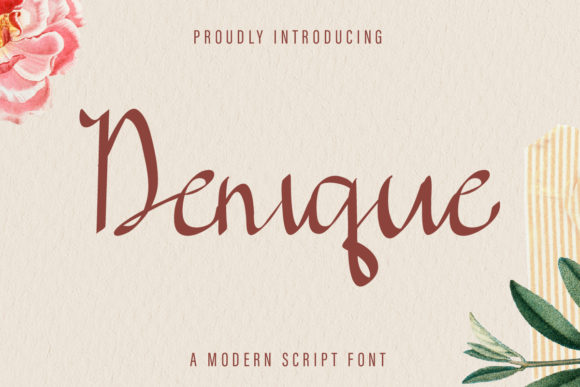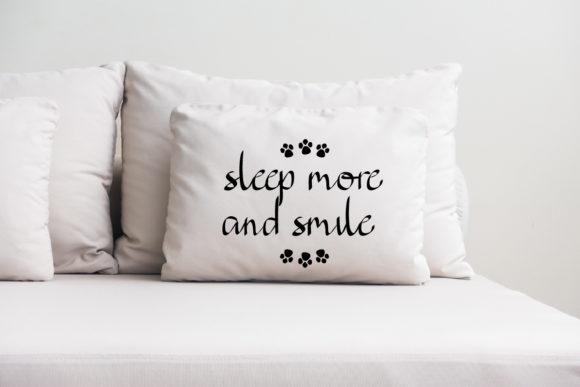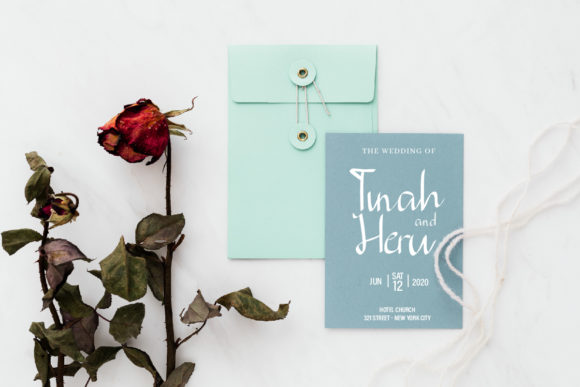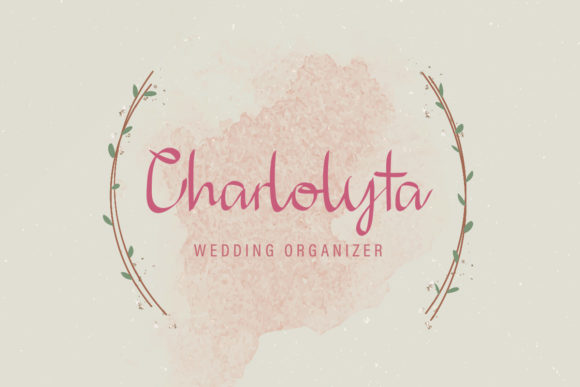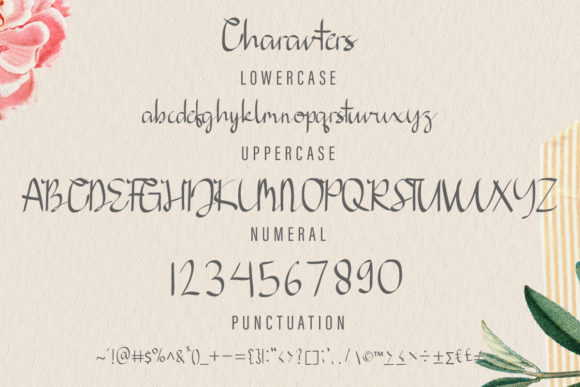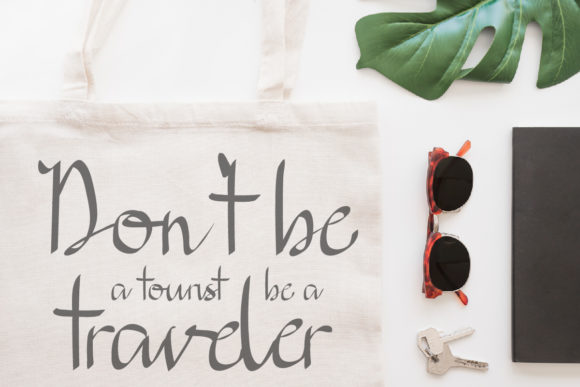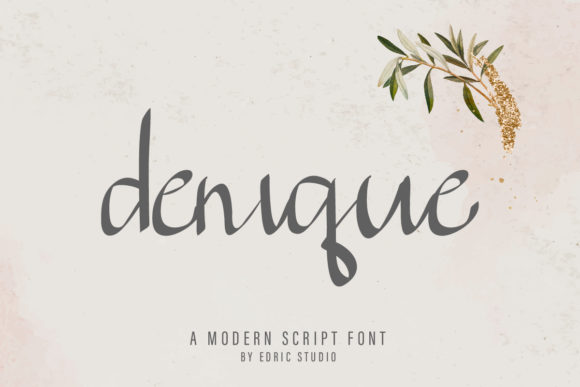
Discover the Elegance of Denique Font: A Delicate Handwritten Script
Are you on the hunt for a font that exudes elegance, simplicity, and uniqueness? Look no further than Denique Font. This delicate, simple, and unique handwritten font is designed to elevate your creative projects with its beautiful and well-balanced characters. In this article, we’ll dive into the world of Denique Font, exploring its features, benefits, and uses, and why it’s a must-have for designers and crafters alike.
The Characteristics of Denique Font
Denique Font is a handwritten script that boasts a delicate and simple design. Its characters are meticulously crafted to achieve a perfect balance of elegance and readability. The font’s unique feature lies in its ability to seamlessly match a wide pool of designs, making it an incredibly versatile choice for various creative projects.
Whether you’re working on a branding project, crafting a social media graphic, or designing a wedding invitation, Denique Font is sure to make your ideas come alive. Its beautiful and well-balanced characters add a touch of sophistication and refinement to any design, making it perfect for projects that require a level of elegance and poise.
The Benefits of Using Denique Font
So, what makes Denique Font a go-to choice for designers and crafters? Here are just a few benefits of using this stunning font:
• Unique and Eye-Catching: Denique Font’s delicate and simple design sets it apart from more traditional fonts. Its uniqueness ensures that your designs will stand out from the crowd and grab the attention of your audience.
• Versatile: Denique Font is incredibly versatile and can be used in a wide range of designs, from elegant branding projects to playful social media graphics.
• Elegant and Refined: The font’s beautiful and well-balanced characters add a touch of elegance and refinement to any design, making it perfect for projects that require a level of sophistication.
• Easy to Read: Despite its delicate design, Denique Font is incredibly easy to read, making it perfect for body text and other applications where readability is key.
Using Denique Font in Your Designs
So, how can you incorporate Denique Font into your designs? Here are a few ideas to get you started:
• Branding Projects: Use Denique Font to create elegant and sophisticated branding materials, such as logos, business cards, and letterheads.
• Social Media Graphics: Add a touch of elegance to your social media graphics with Denique Font. It’s perfect for creating eye-catching posts, stories, and ads.
• Wedding Invitations: Denique Font is a popular choice for wedding invitations, and for good reason. Its delicate and simple design adds a touch of romance and sophistication to any invitation.
• Packaging Design: Use Denique Font to create beautiful and elegant packaging designs that will make your products stand out on store shelves.
Tips for Getting the Most Out of Denique Font
To get the most out of Denique Font, here are a few tips to keep in mind:
• Pair it with Bold Fonts: Denique Font pairs beautifully with bold fonts. Try pairing it with a bold sans-serif font for a striking contrast.
• Experiment with Colors: Denique Font looks stunning in a range of colors. Experiment with different colors to find the perfect shade for your design.
• Use it for Headings and Titles: Denique Font is perfect for headings and titles. Use it to add a touch of elegance and sophistication to your designs.
In conclusion, Denique Font is a delicate, simple, and unique handwritten font that is sure to elevate your creative projects. Its beautiful and well-balanced characters make it a versatile choice for a wide range of designs, from elegant branding projects to playful social media graphics. With its ease of use and stunning design, Denique Font is a must-have for designers and crafters alike.